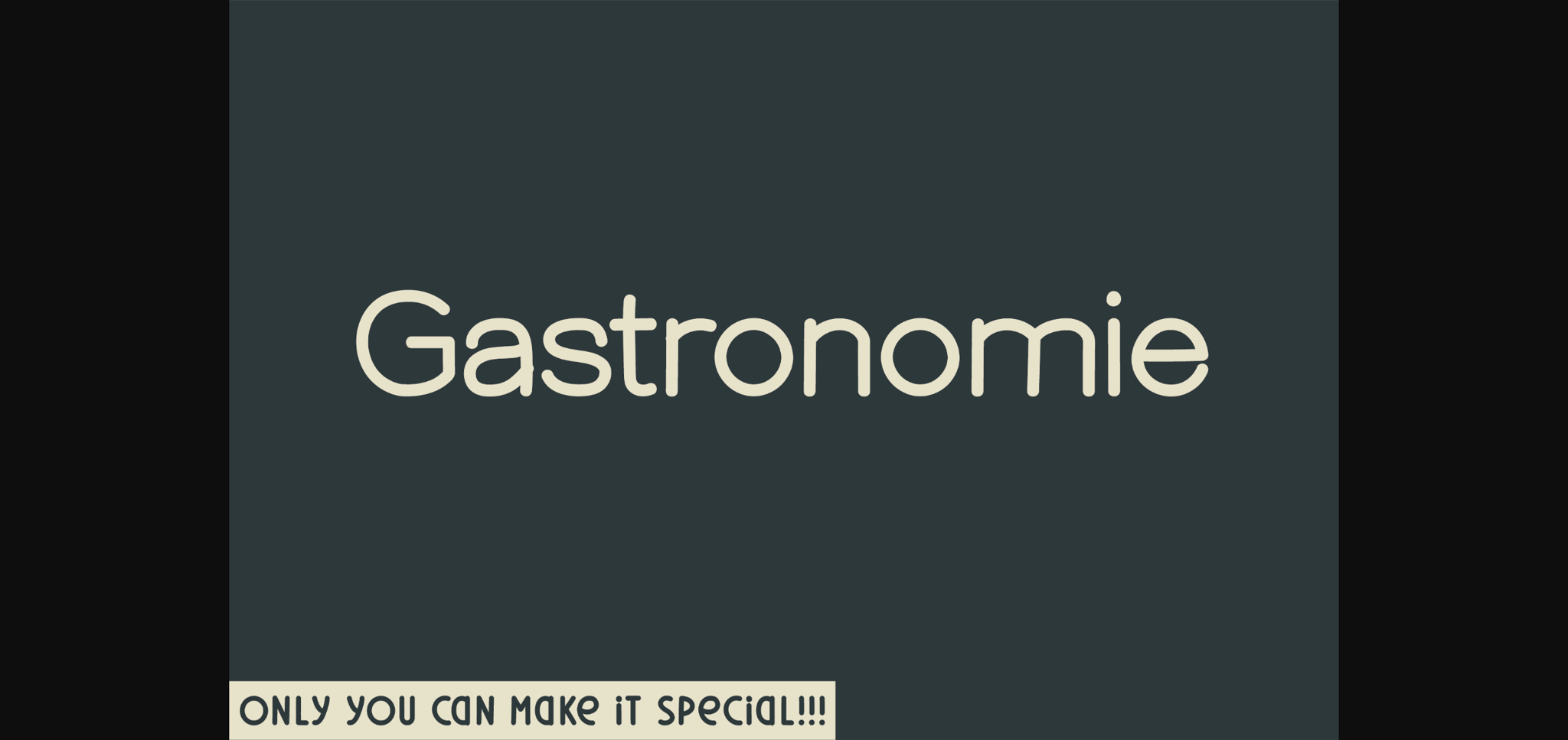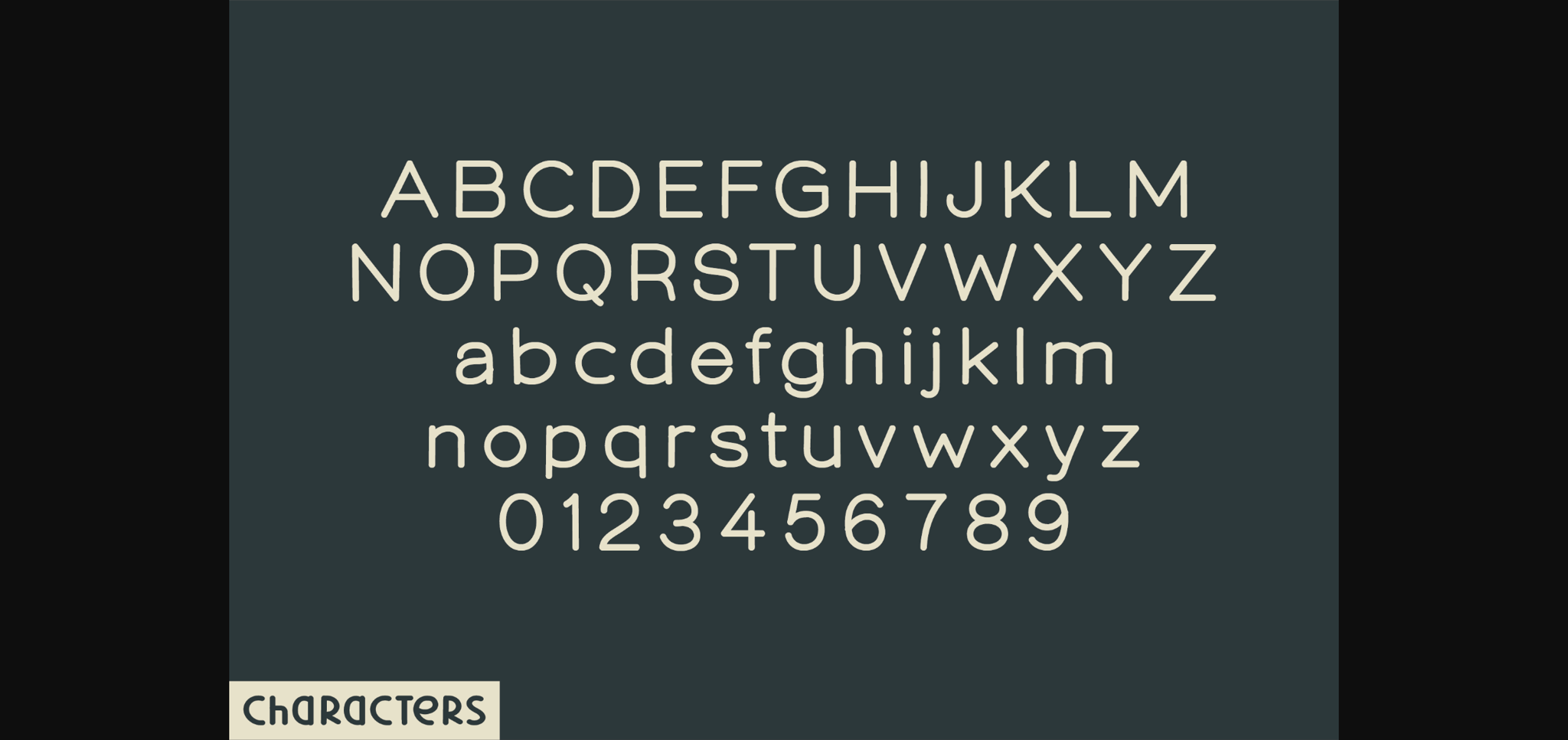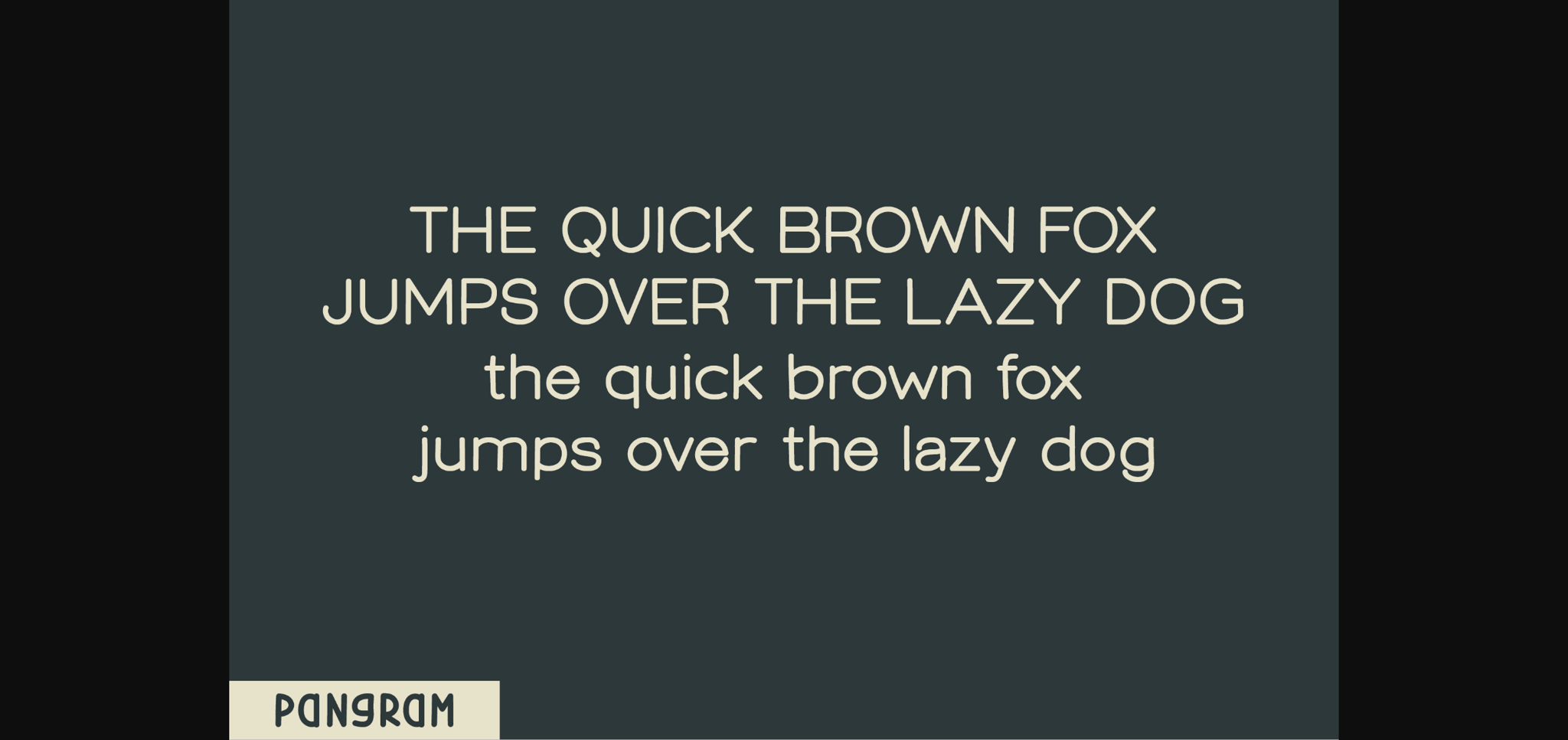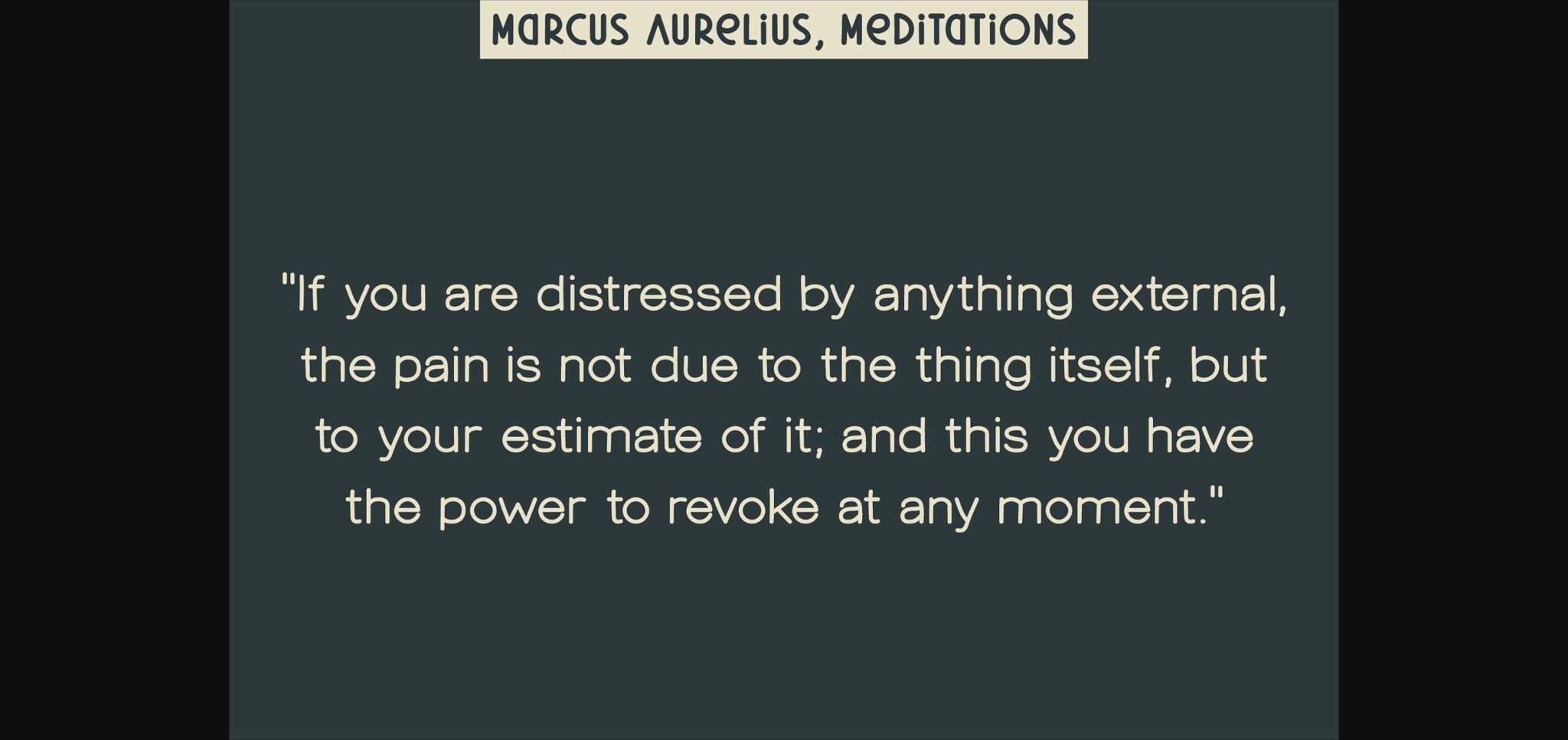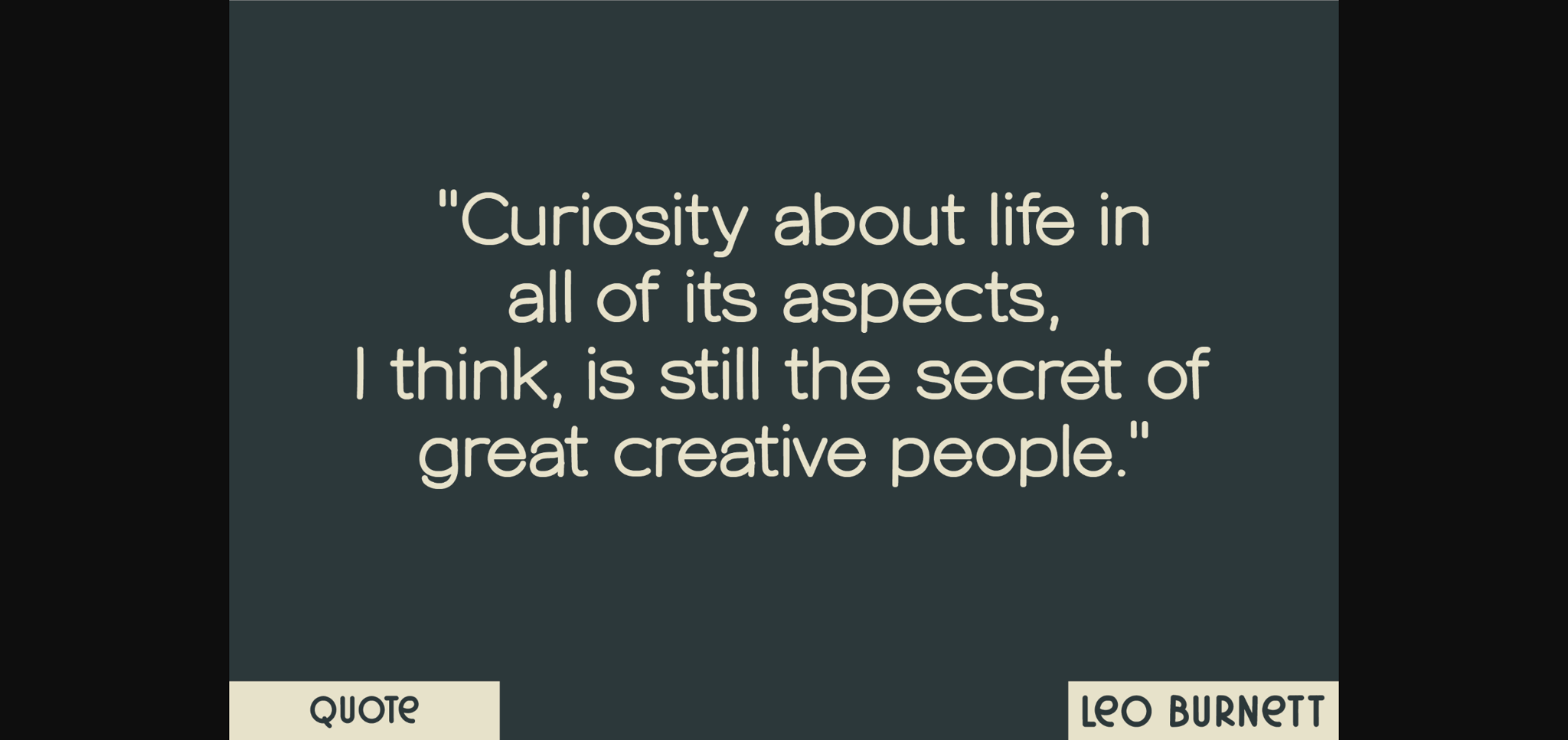
Gastronomie Font
About Gastronomie Font
Discover the charming sophistication of Gastronomie, a handcrafted sans serif font that elevates your design work. This stylish font is a fusion of uppercase, lowercase, numerals, and pragmatic characters that adds an additional level of complexity to your creations. The delicately rounded terminus of each letter lends a delightfully firm yet soothing visual impact. Gastronomie is an ideal choice when your goal is to inject a touch of unexpected uniqueness into your designs. Engage your audience with the distinct allure of Gastronomie, a font that truly stands apart.